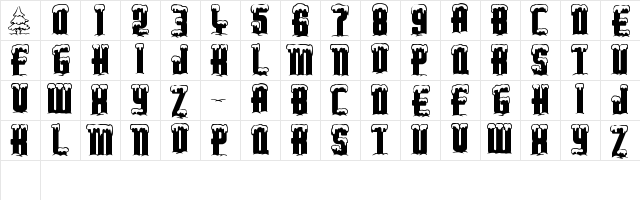
Merry Xmas Regular
Design Context for Merry Xmas Typeface
Merry Xmas is a composed and adaptable typeface that performs quietly and consistently across a wide range of design contexts.